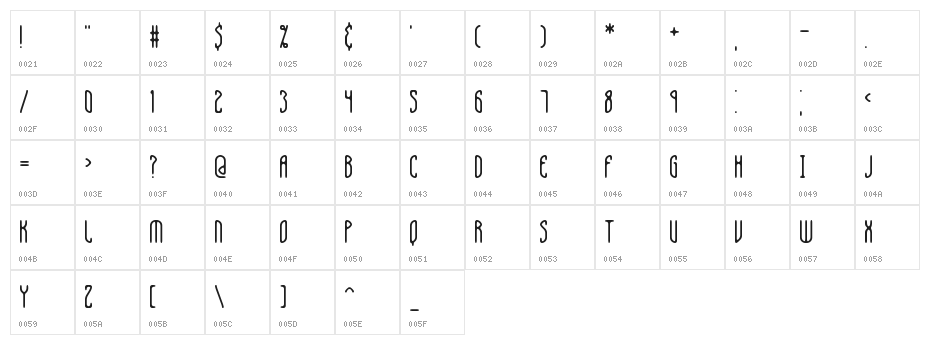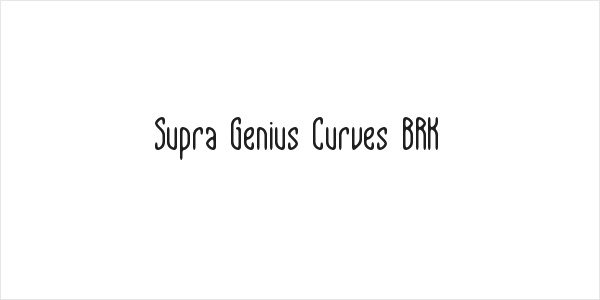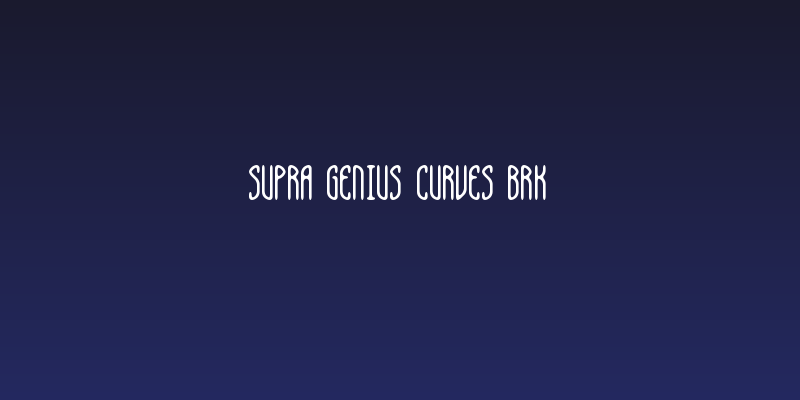
Supra Genius Curves BRK Font
Supra Genius Curves BRK Description
This font features a unique blend of modern and playful design elements, characterized by its rounded, tubular letterforms. The uppercase and lowercase letters maintain a consistent height, creating a uniform appearance. The strokes are even and smooth, with a slight curvature that adds a friendly and approachable feel. The numbers and special characters follow the same design principles, ensuring cohesion across all elements. This font's distinct style makes it stand out, while its readability remains intact.